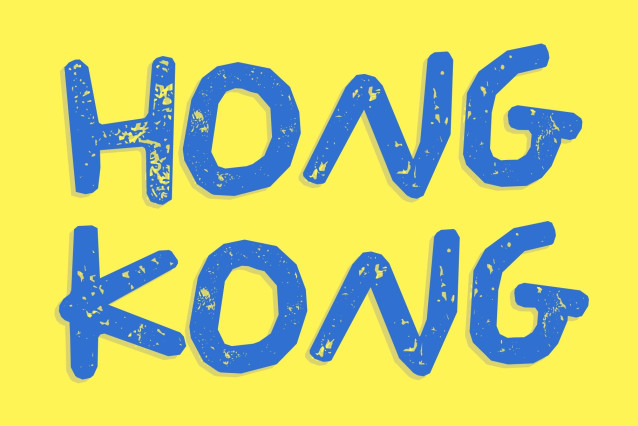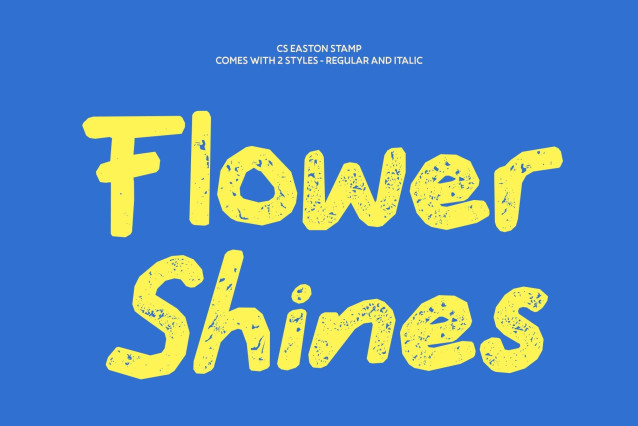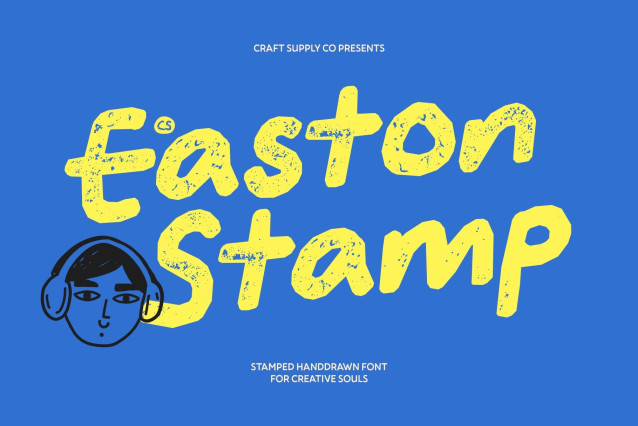
CS Easton Stamp Font
CS Easton Stamp – Playful Handwritten Charm with Vintage Texture
Natural Flow with a Fun Spirit
This font captures the heart of creativity with its natural handwritten flow and textured character. Blending a simple sans serif structure with freehand expression, it radiates warmth, liveliness, and a cheerful human touch.
Modern and Expressive Design
Balancing modern form with expressive energy, this font transforms ordinary text into something vibrant and engaging. Its smooth rhythm and clear readability work beautifully across posters, branding, and social media visuals, adding authenticity and charm to every composition.
Vintage Stamp Effect with Handmade Character
Enhanced with a subtle stamp texture, this font gains a lightly distressed, handcrafted feel. This vintage layer adds depth and warmth, reinforcing its friendly and organic personality.
Perfect for Playful Branding and Creative Titles
Ideal for youth branding, fun event posters, quirky packaging, and creative marketing materials, this font delivers a joyful and distinctive tone that helps designs stand out with energy, freshness, and personality.